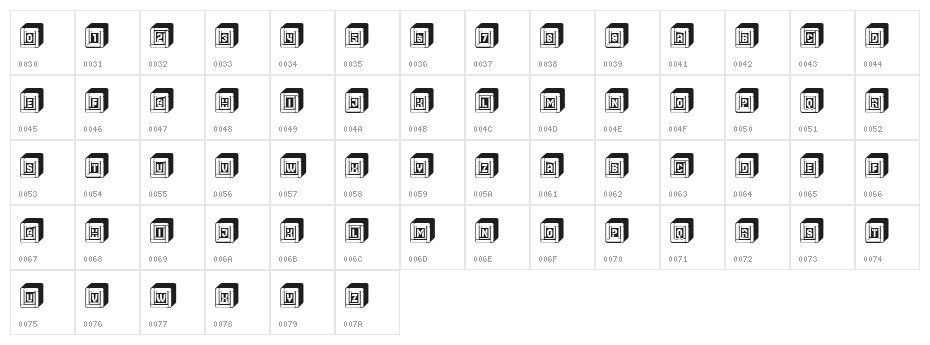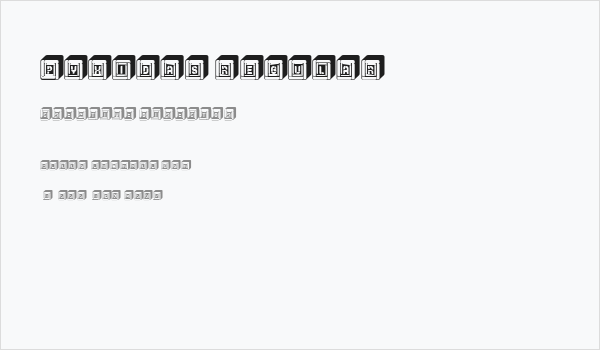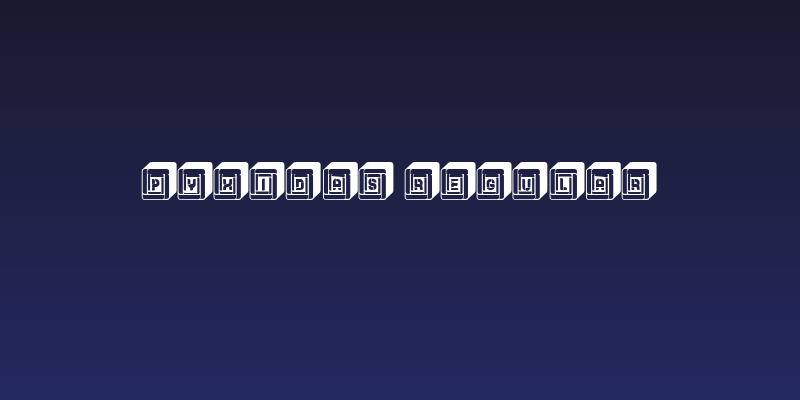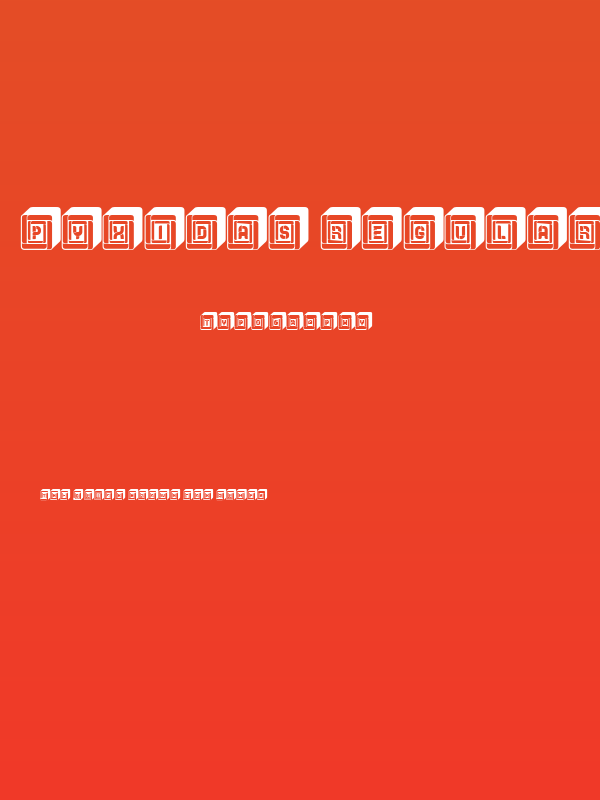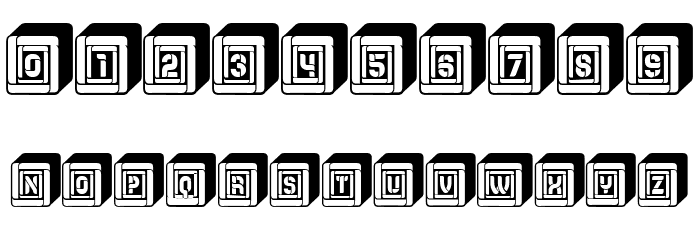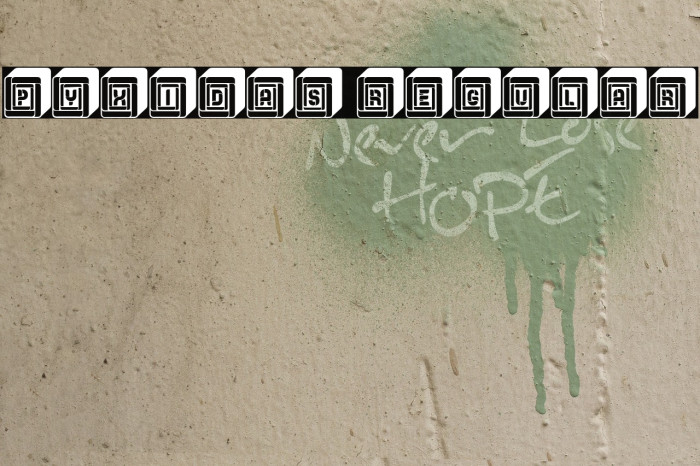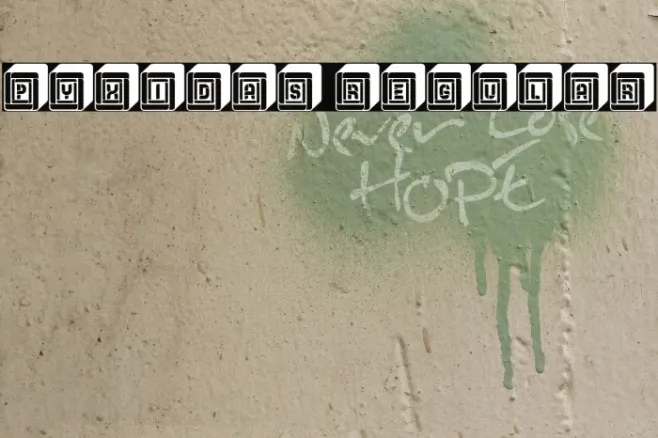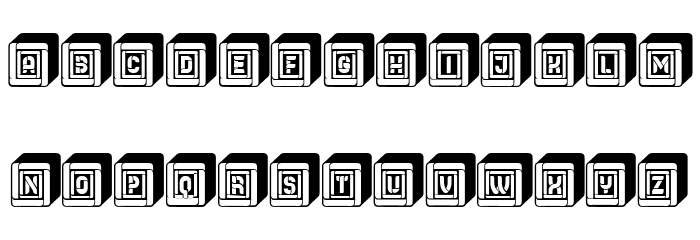
Pyxidas Regular Font
Pyxidas Regular Description
This font features a bold, three-dimensional block style with a shadow effect, giving each character a distinct and eye-catching appearance. The letters are enclosed in a rectangular frame, enhancing their geometric and structured look. The design is consistent across uppercase, lowercase, numbers, and special characters, maintaining a uniform aesthetic. The boldness and shadow create a strong visual impact, making it suitable for attention-grabbing designs.